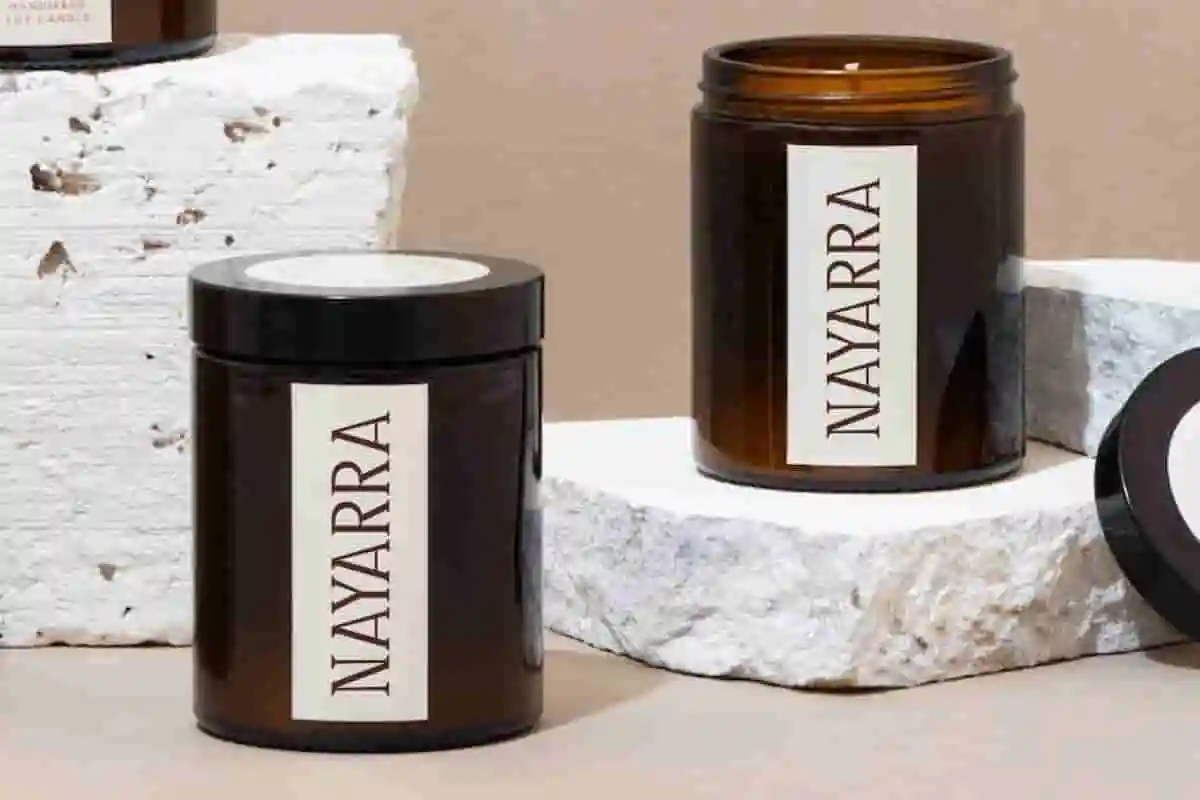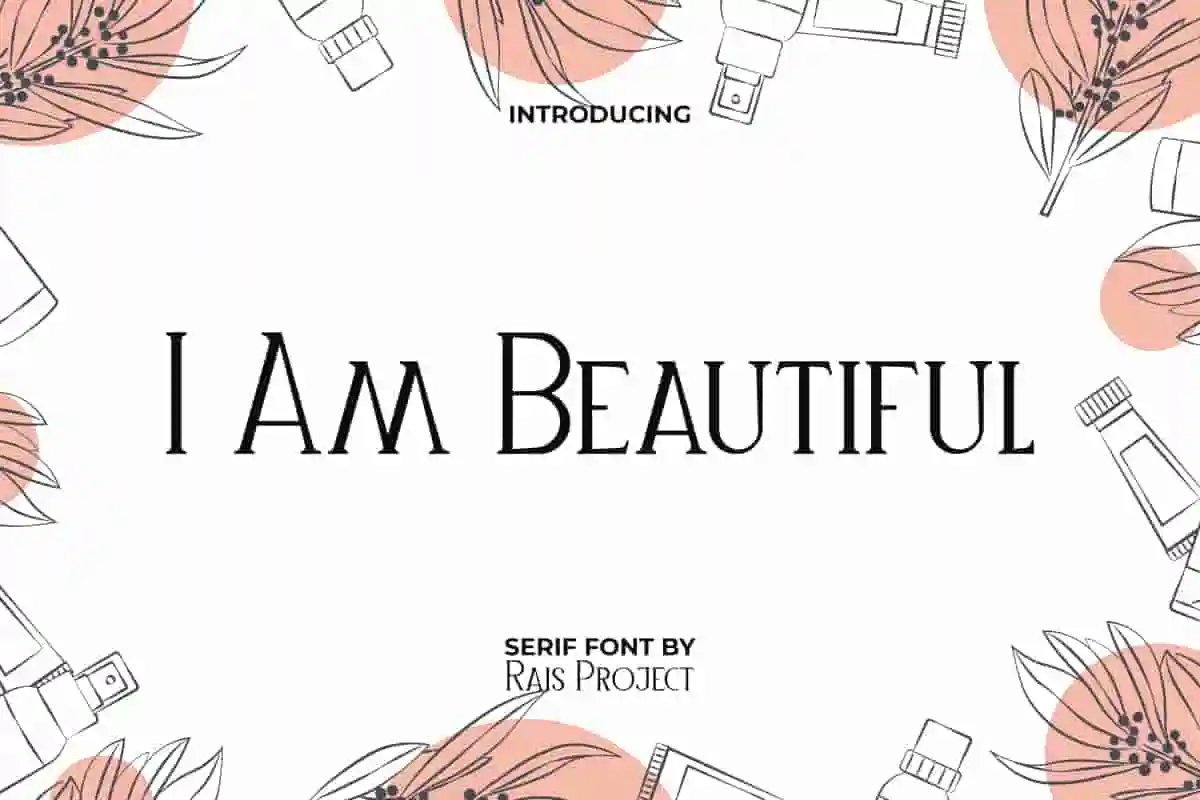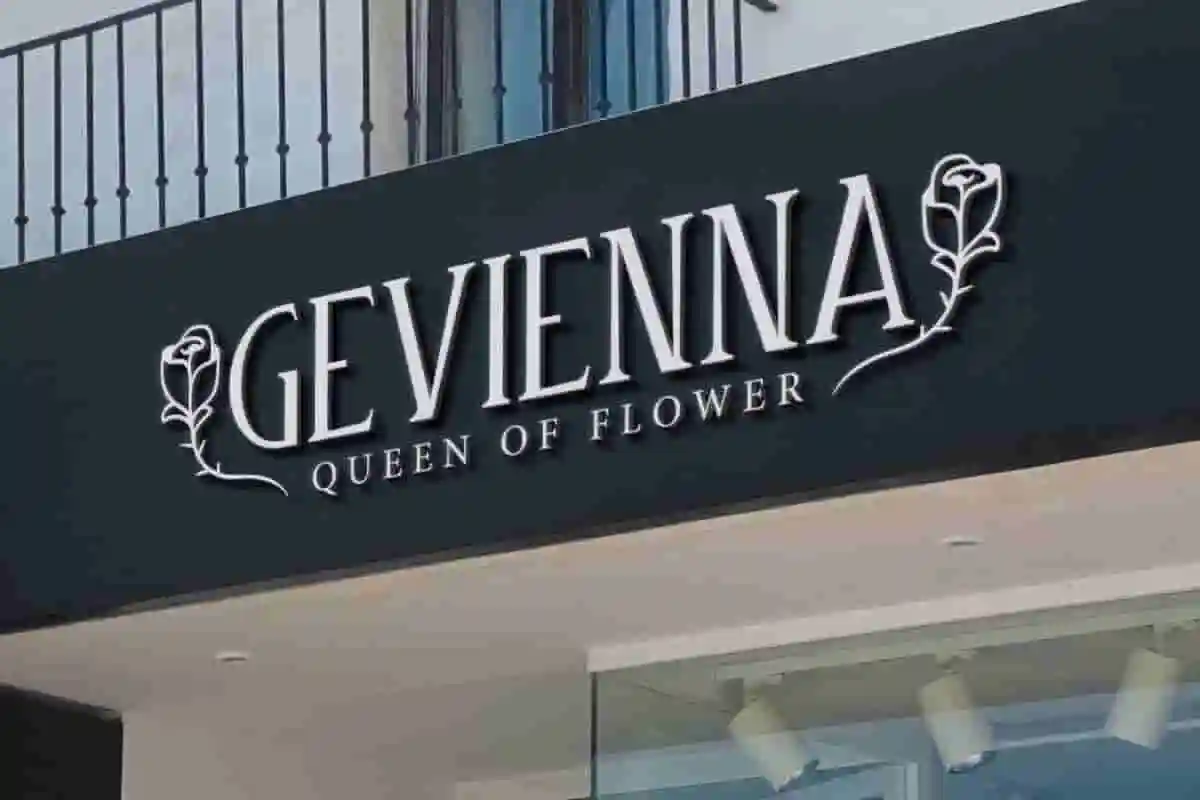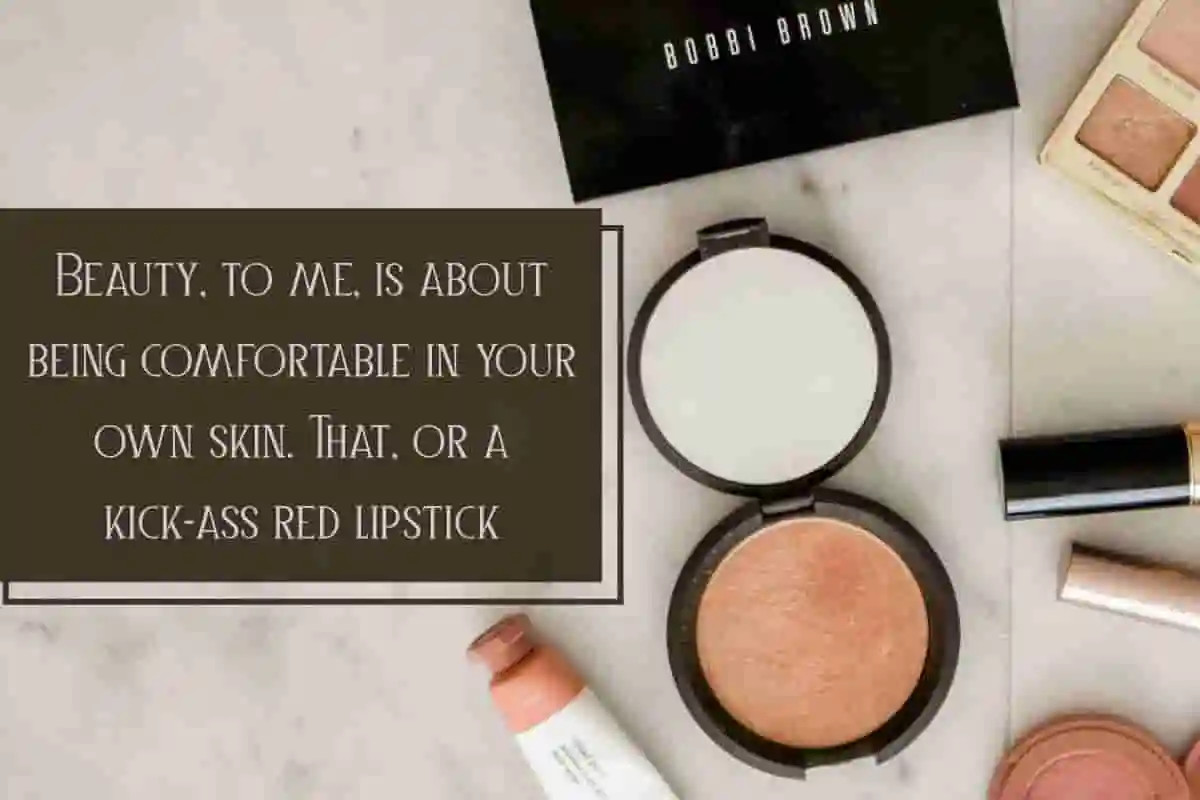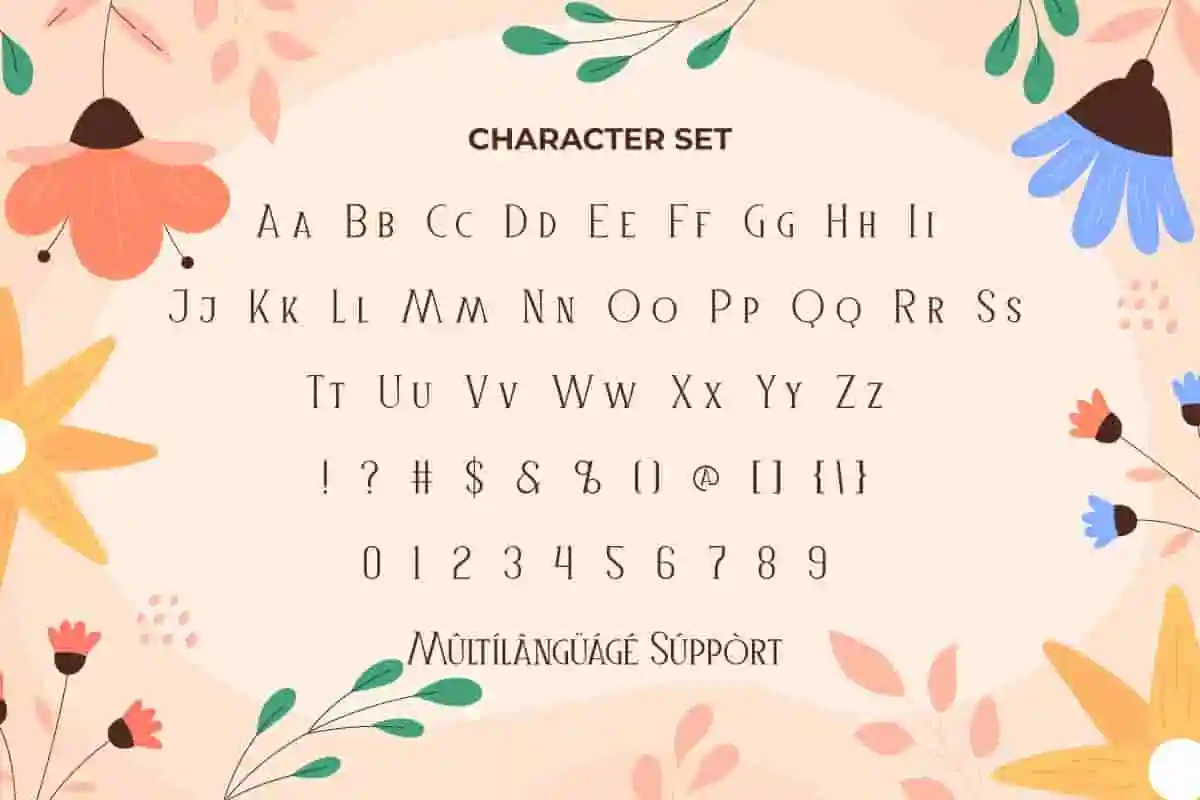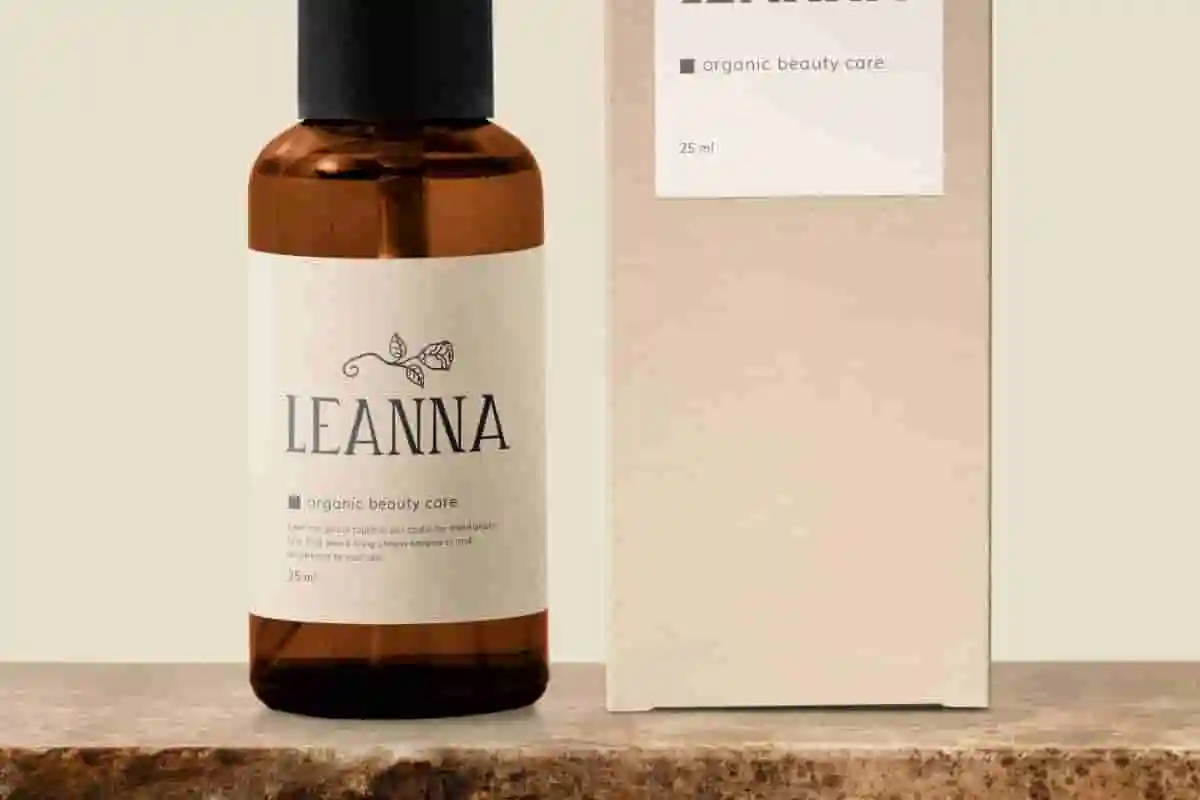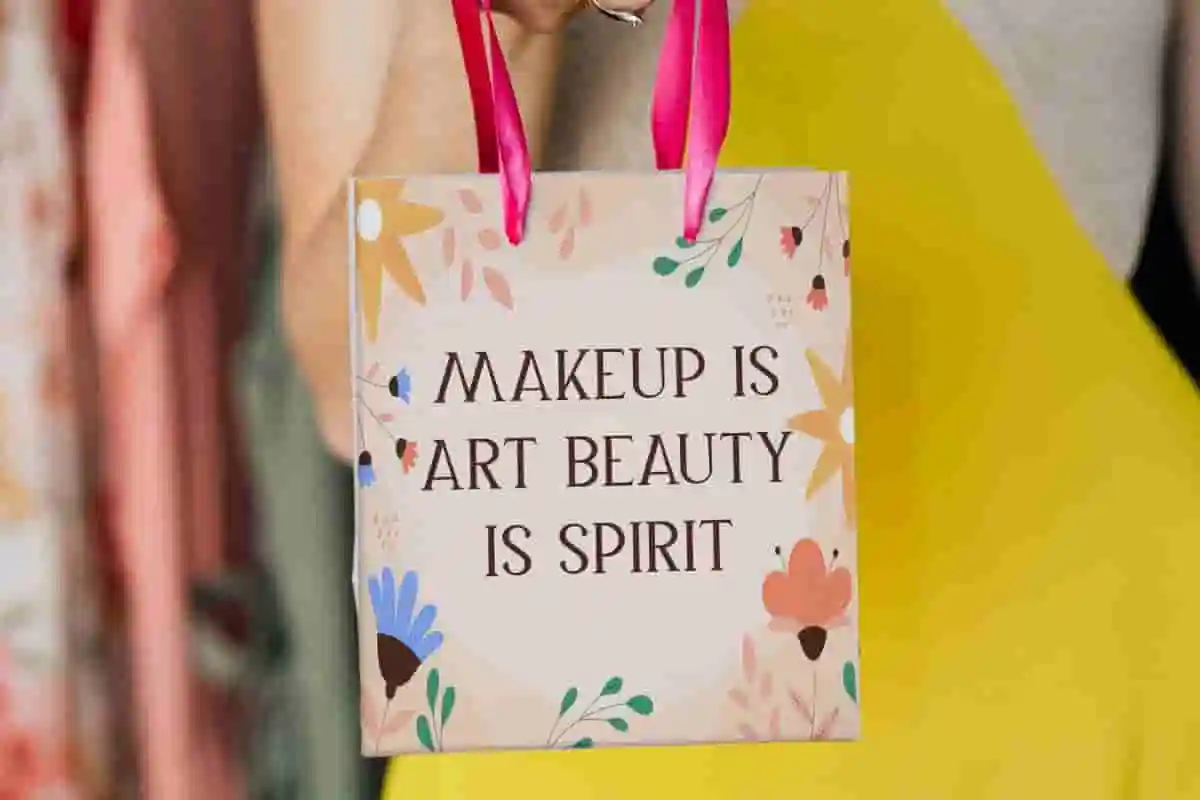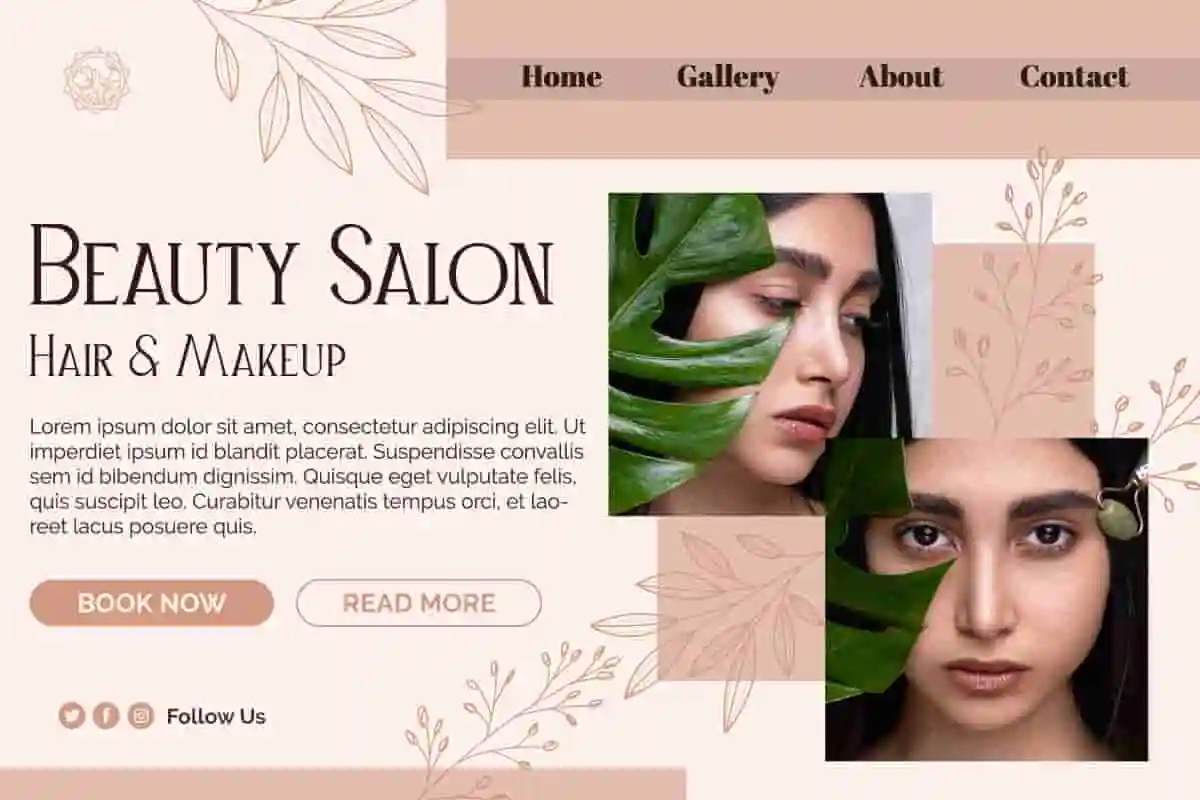
I Am Beautiful Font (Copy)
I Am Beautiful Font is a sophisticated and elegant serif display font designed by RaisProject Studio. Its simple style can dazzle your eyes and make you fall in love at first sight. Use this font right away and see how stunning it is!
I Am Beautiful Font a sophisticated and elegant serif display font designed by RaisProject Studio.It will work well in many designs, such as brand image, business card, cover, custom design, gift box, invitation, label, menu, product packaging, quote, signage, web, and more! You can see the demo font below, input any word you want so you can see what it looks like:
I Am Beautiful Font includes a full of ALL CAPS with different size between Uppercase and Lowercase, Numerals, and large range of Punctuation. This stunning font will be suitable for various industries, such as advertisement, beauty product, event or wedding organizer, fashion, jewelry and accessories, photography, printing, publishing, salon and spa, etc. What you get: